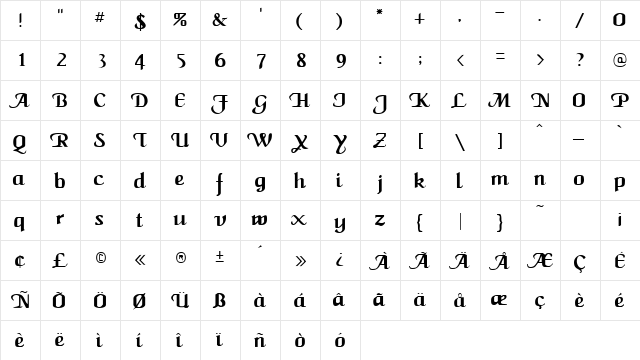
Wings Regular
Design Context for Wings Typeface
Wings is a composed and adaptable typeface that performs quietly and consistently across a wide range of design contexts.
Pro Tip: Pair Wings with a font of contrasting weight or personality to build a more expressive typographic hierarchy.